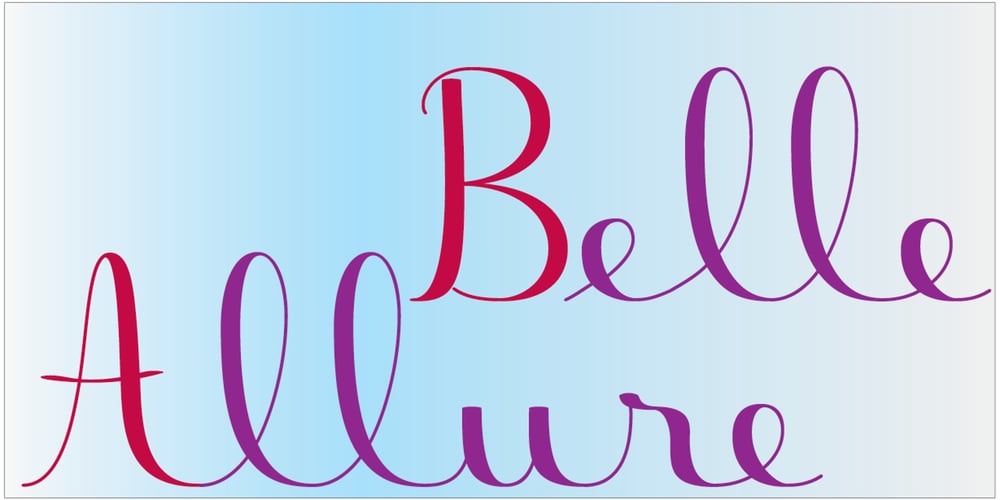
Belle Allure Font Family was designed by Jean Boyault and published by JBFoundry. Belle Allure contains 4 styles and family package options. Belle Allure is a font for schools. It is based on the continuity of movement and simple paths which let a fast and easy cursive writing. It respects the French habits and leans on a wide character set and on the OpenType properties.